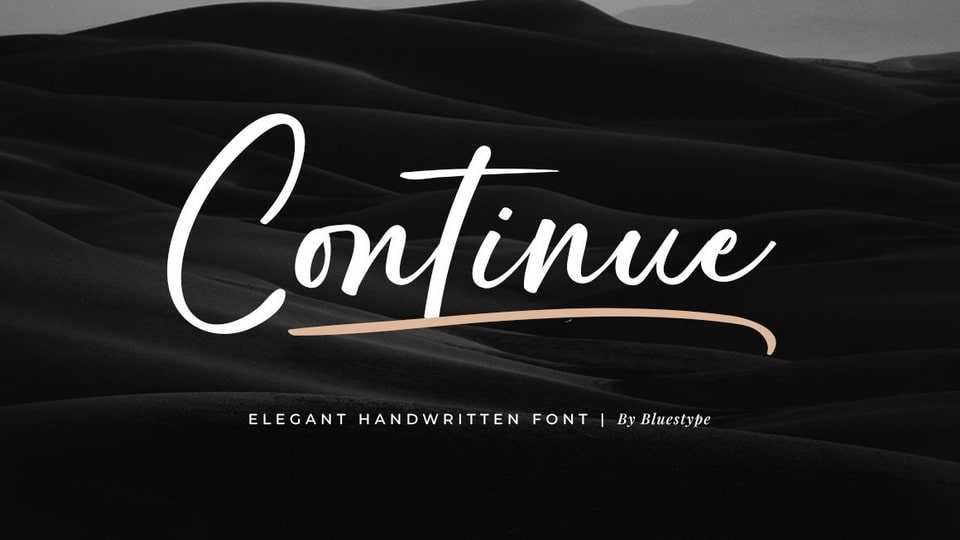
Download Continue font, a typeface that brings the natural and beautiful feel of handwritten text. With a design resembling hand lettering, this font adds a personal and creative touch to every word.